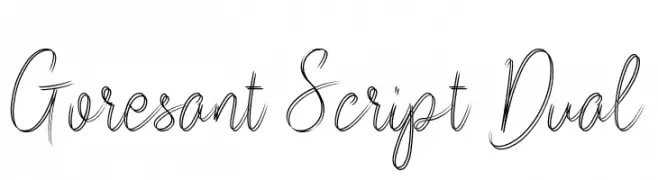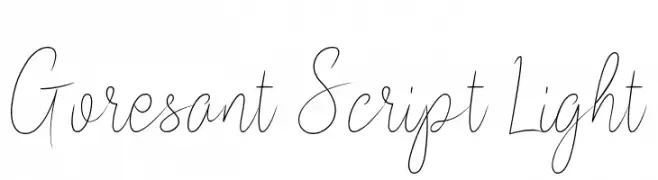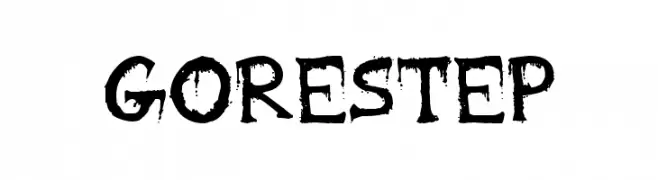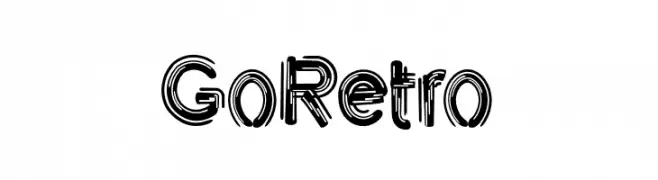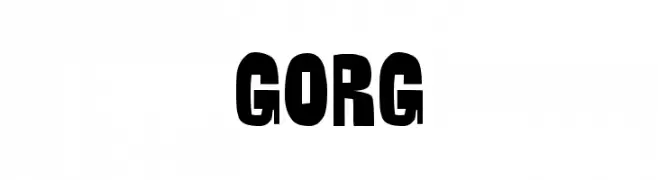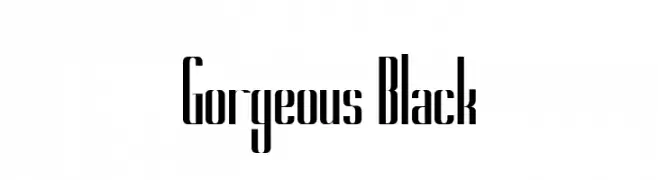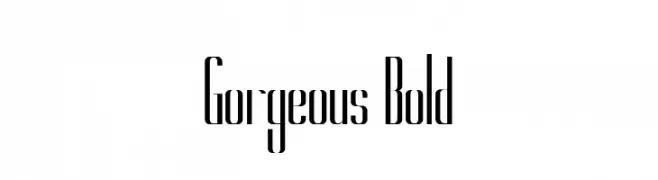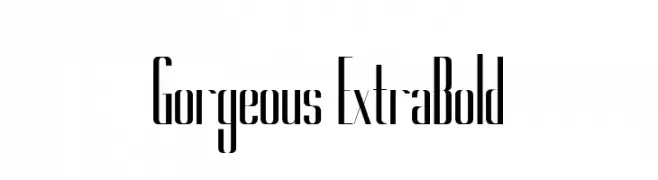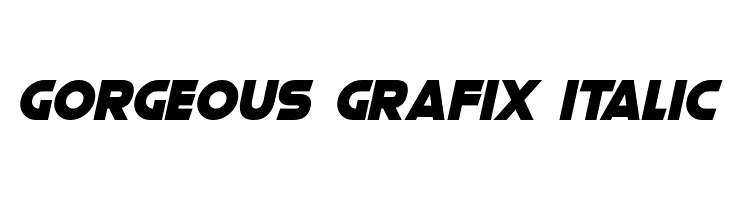
A dynamic and fluid script font with elegant, flowing letterforms.
A graceful and elegant script font with flowing, connected strokes.
A bold, grungy font with a distressed, hand-drawn appearance.
A bold, retro-inspired font with layered outlines and a playful, dynamic style.
A bold, playful font with exaggerated curves and high contrast, perfect for attention-grabbing designs.
A bold, playful font with rounded edges and a hand-drawn style.
A bold, modern font with tall, narrow characters and elegant style.
A tall, narrow font with high contrast and elegant style.
A bold, dynamic font with a slightly condensed and modern style.
A sleek, modern font with elongated, narrow letterforms and high contrast strokes.